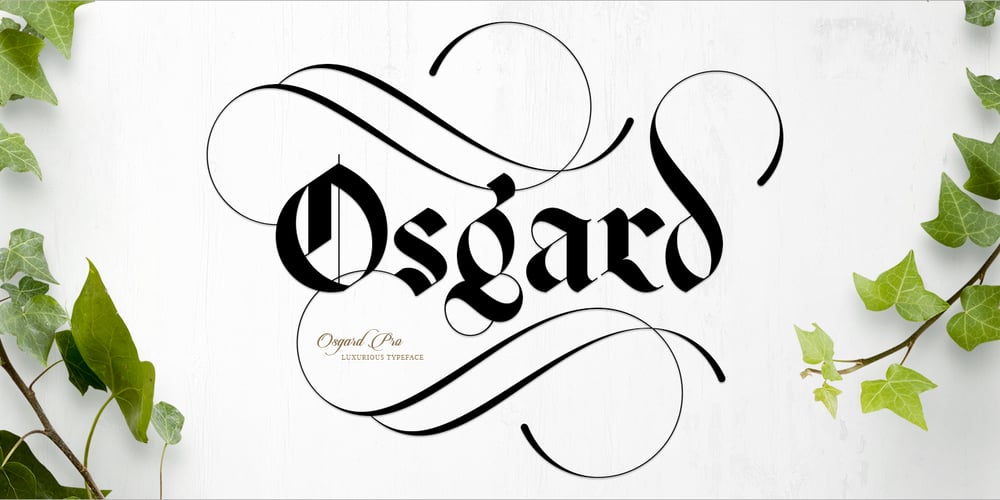
Osgard Font Family was designed by Anthony James and published by Anthony James. Osgard contains 1 styles and family package options. Osgard is a powerful luxurious Typeface, adopting the fluid curvaceous elements of Romanesque typography and combining them with the Gothic style of Blackletter. Forging the two creates a far softer, more versatile, fashion-based typeface; with beautifully distinct qualities. 1000 swashes, pre-made Conjunction Ligatures, Stylistic Alternates, Discretionary Ligatures, Contextual Alternates and all the OpenType features you need, make it perfect for any application.